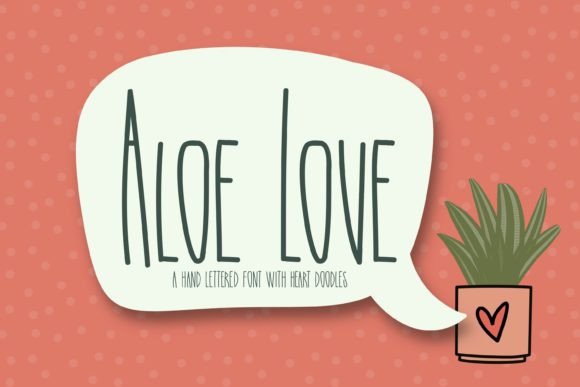
Discover the Quirkiness of Aloe Love Font
Have you ever been in the middle of a design project, and suddenly, you just can’t seem to find the right font? I recall a particularly frustrating experience while working on a whimsical craft project for a client who wanted something that captured the essence of a carefree summer. The project required a font that was not only playful but also elegant and light-hearted. After scouring through countless font libraries, I stumbled upon Aloe Love Font, and it instantly became the perfect fit. In this article, we’ll dive into what makes Aloe Love so special and how you can make the most of its unique features in your designs.
A Personal Review of Aloe Love Font
Aloe Love Font has quickly become one of my go-to fonts for projects that require a dash of quirkiness and charm. Here’s what I love about it:
- ✨ Playful and Elongated Lines: Aloe Love’s tall and slender design gives it a fresh and lighthearted vibe that’s perfect for fun headlines and modern invitations.
- ✅ Hand-Drawn Feel: The font’s hand-drawn nature adds a breezy, handmade flair to any project, making it ideal for creative crafts and unique packaging designs.
- 🌈 Versatility: Whether you’re working on a whimsical craft project or adding a unique twist to everyday designs, Aloe Love brings a simple yet full-of-personality touch.
While Aloe Love is a fantastic font, it’s not without its quirks:
- 🤔 Limited Formality: Due to its playful nature, Aloe Love might not be the best fit for formal or professional projects that require a more serious tone.
- ⚠️ Legibility at Small Sizes: Like many script fonts, Aloe Love can be a bit tricky to read at very small sizes, so it’s best used at larger sizes for optimal impact.
The Backstory of Aloe Love Font
Aloe Love was designed with the intention of capturing the carefree spirit of a sunny day. Its creator, inspired by the playful patterns of hand-drawn letters and the elegance of tall, slender lines, aimed to produce a font that would bring joy and whimsy to any project. Whether it’s used for a fun craft project or a modern invitation, Aloe Love is sure to add a touch of personality.
- Q: Is Aloe Love suitable for professional projects?
- A: While Aloe Love has a lot of personality, it might be better suited for projects that allow for a bit of whimsy. For very formal projects, you might want to consider a more traditional font.
- Q: Is Aloe Love available in different weights or styles?
- A: The availability of different weights or styles depends on the specific version of Aloe Love you have. Some versions might offer variations to provide more flexibility in your designs.